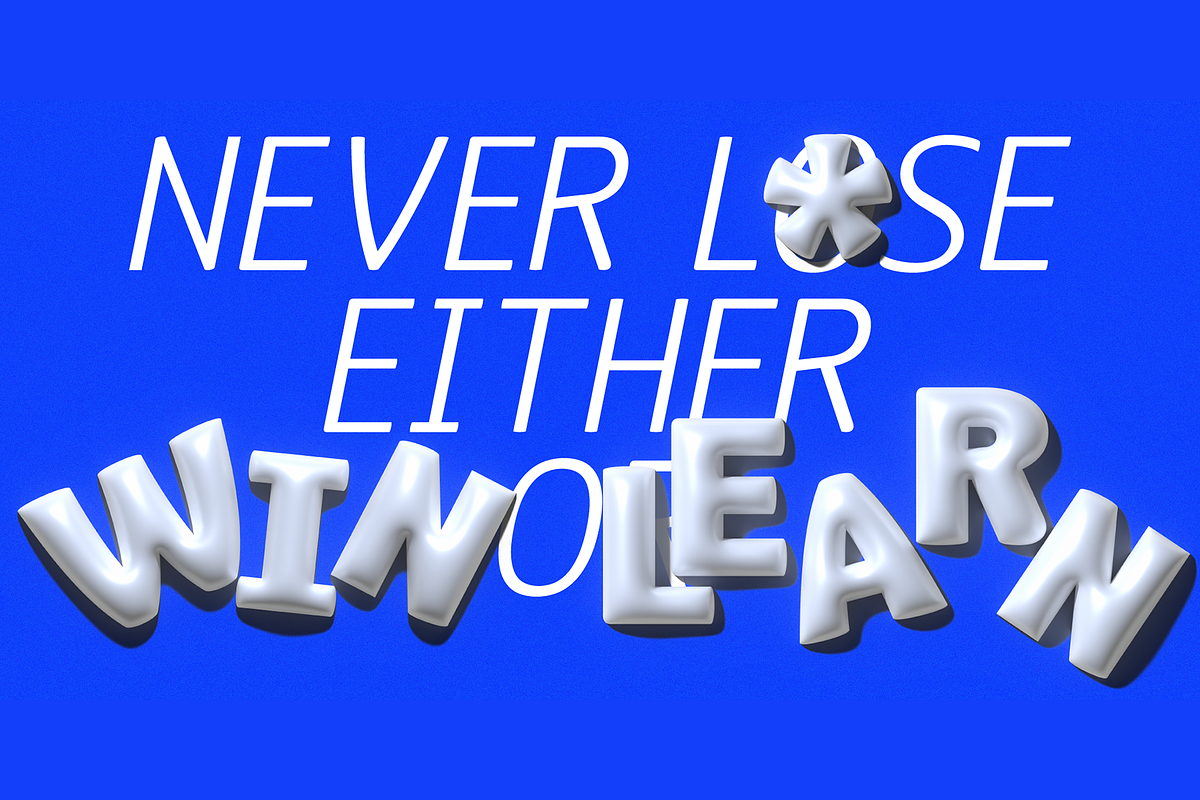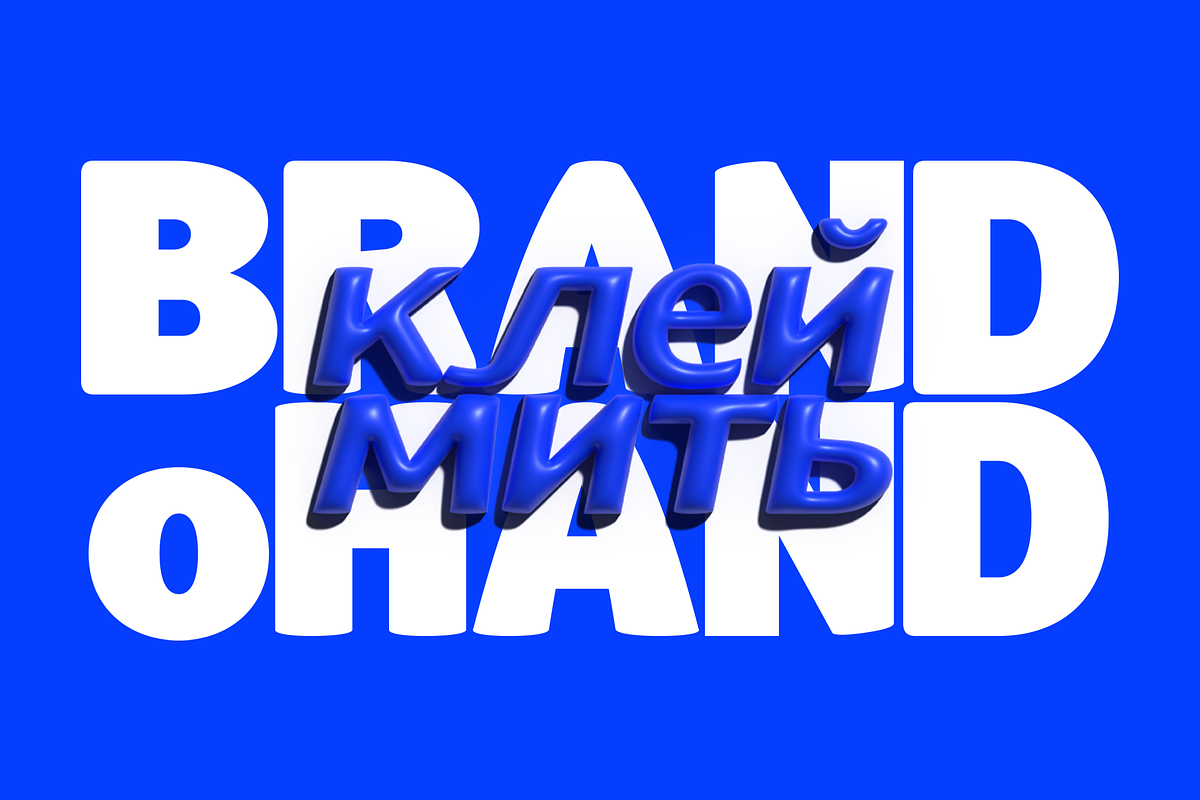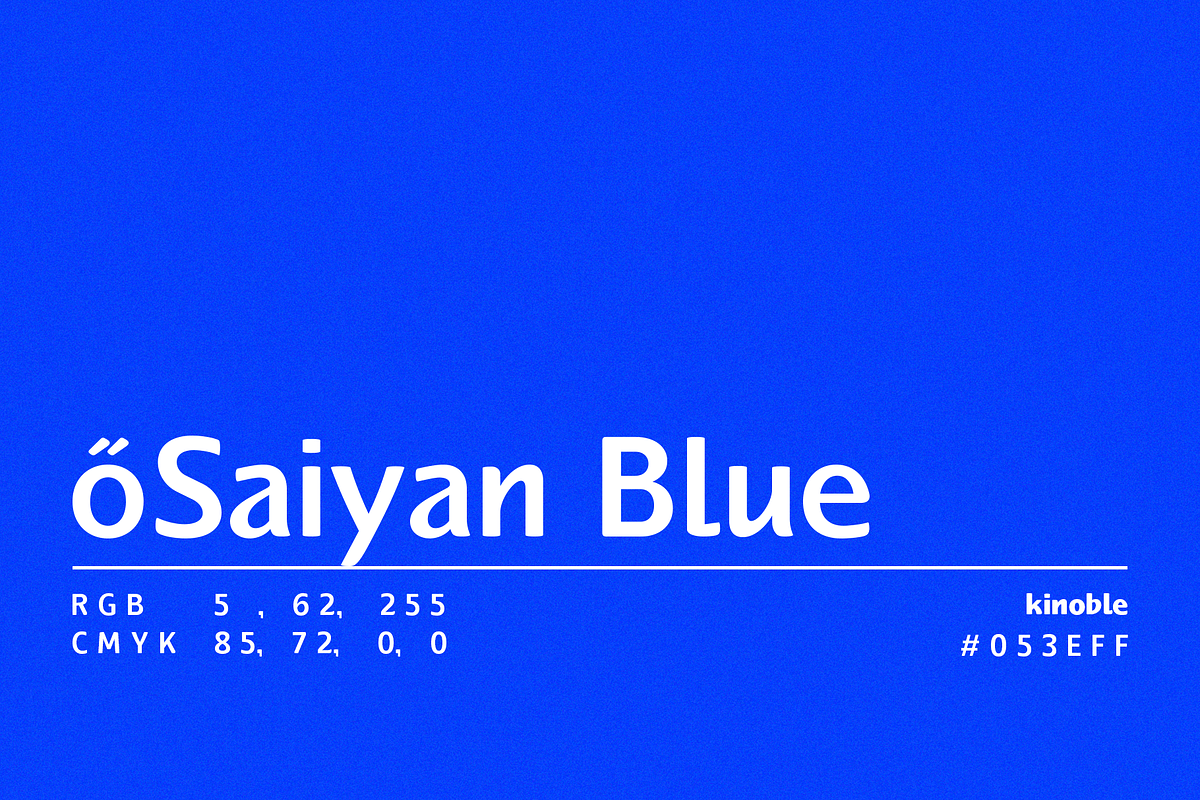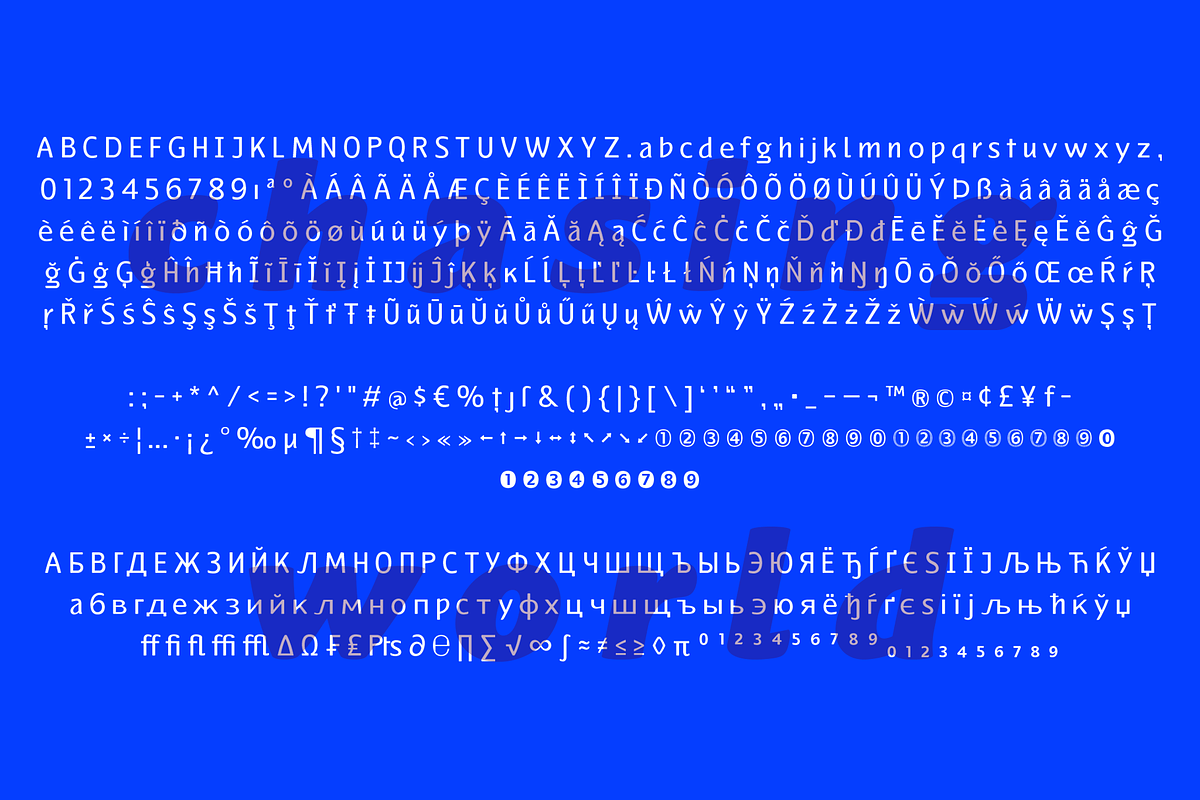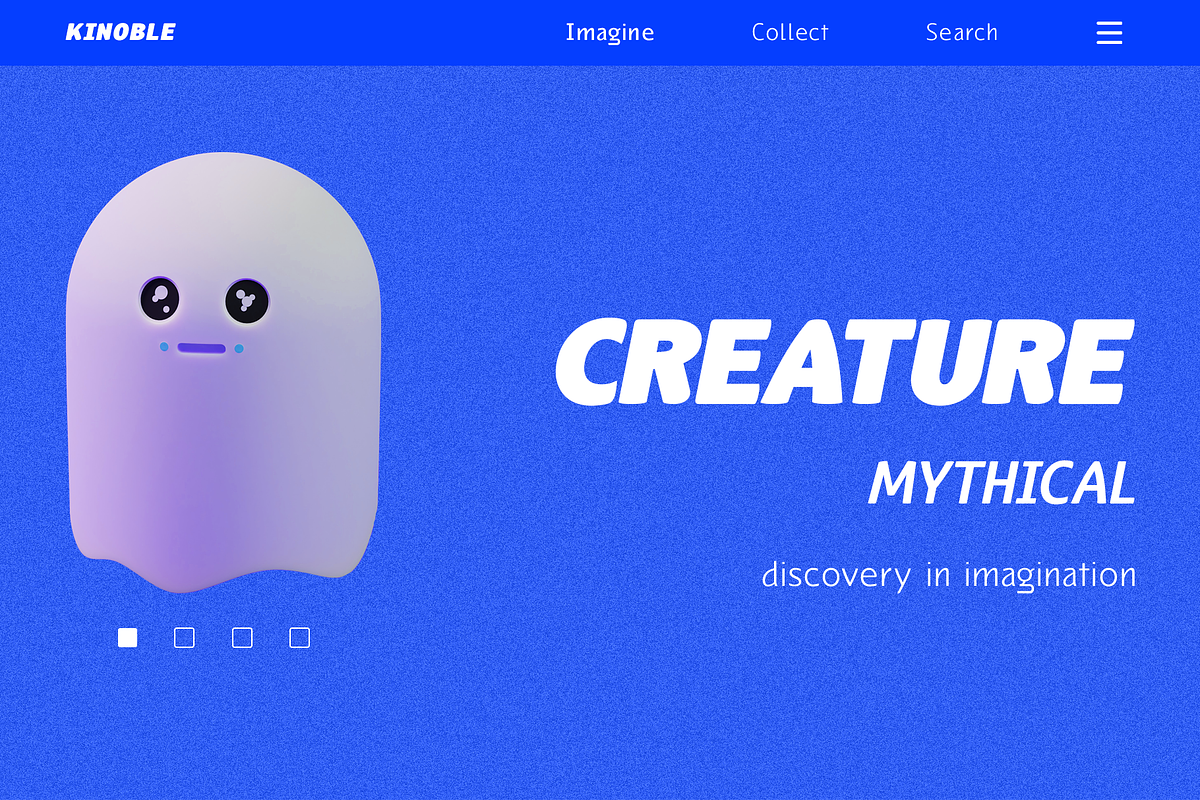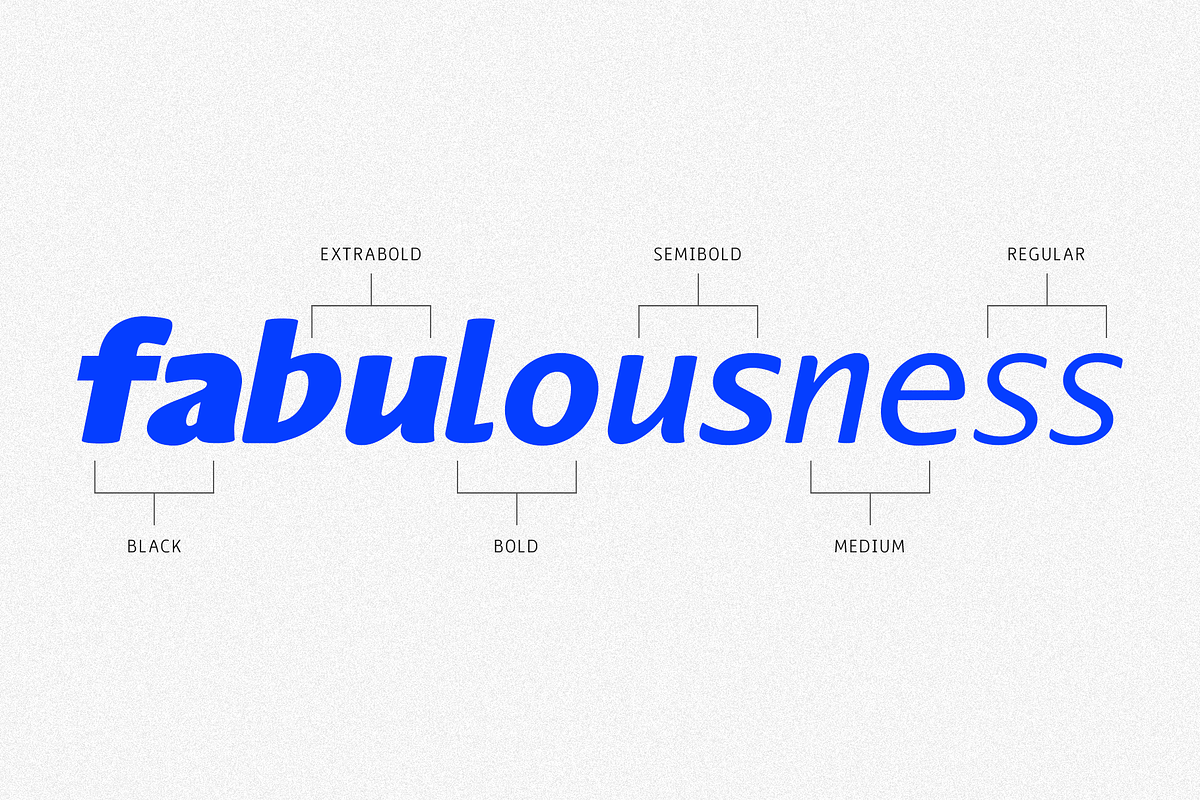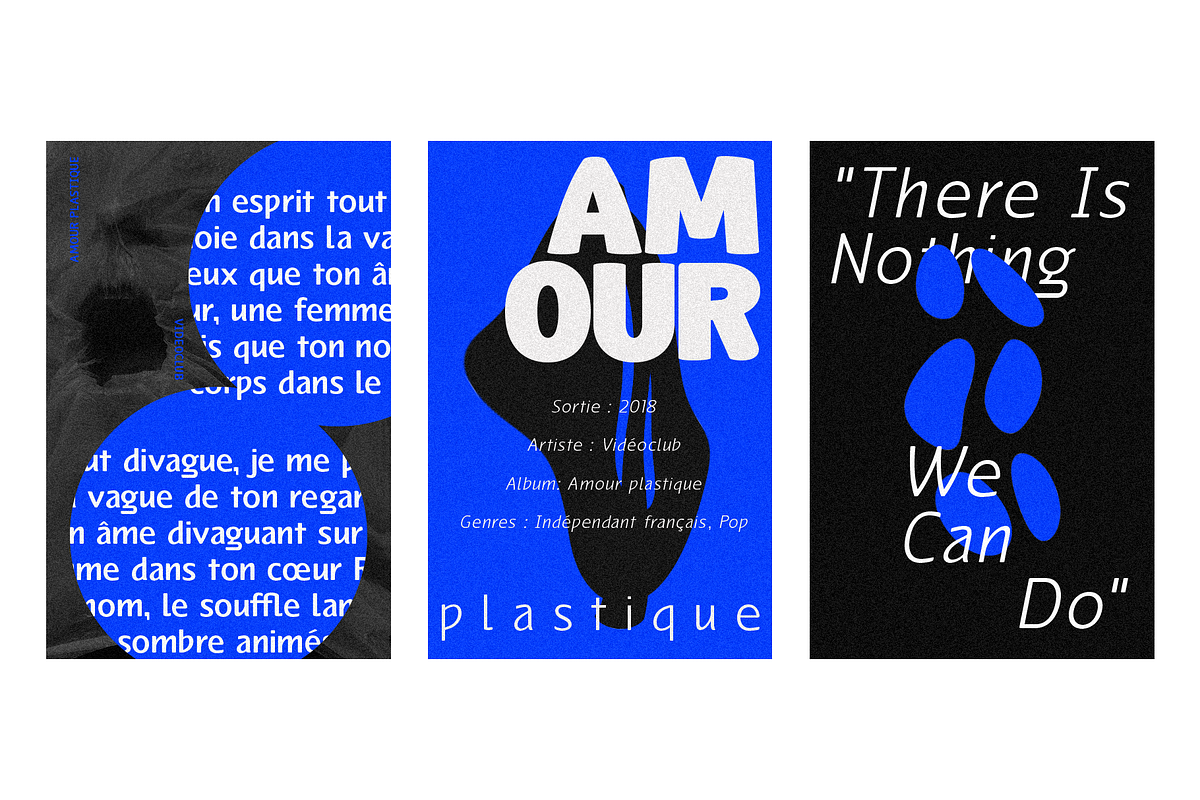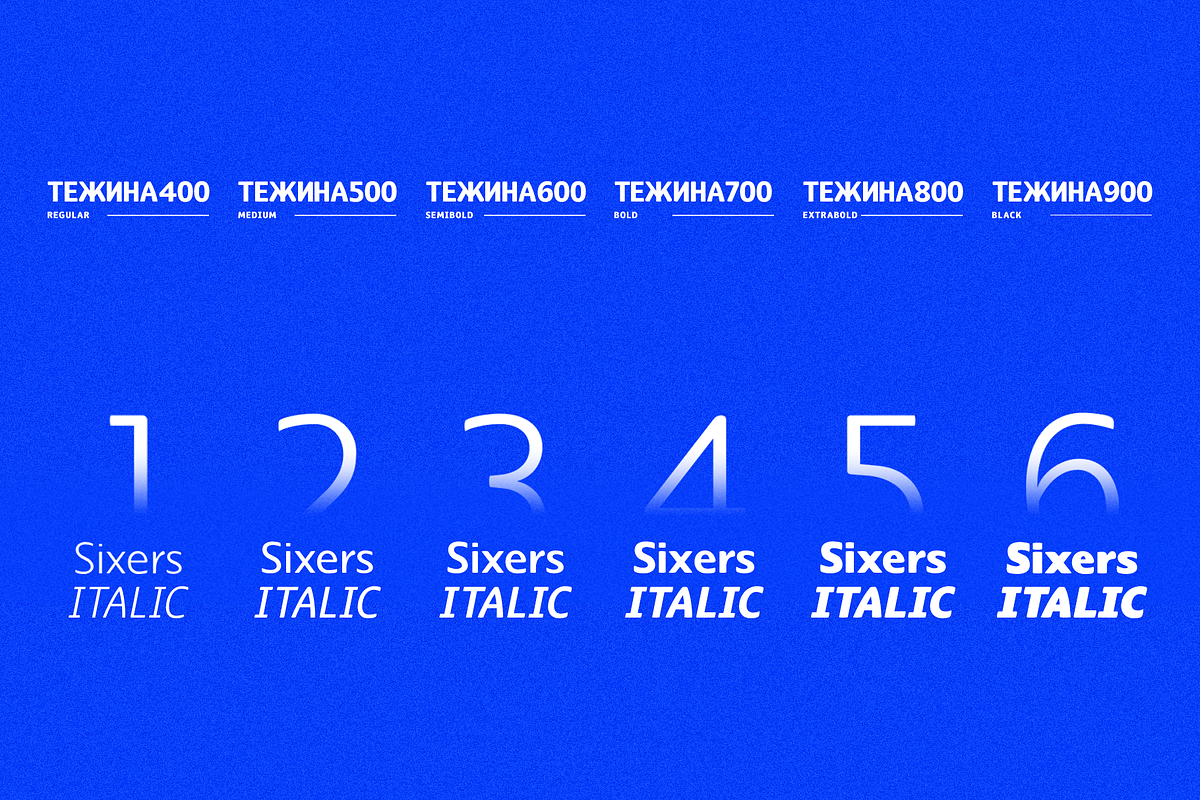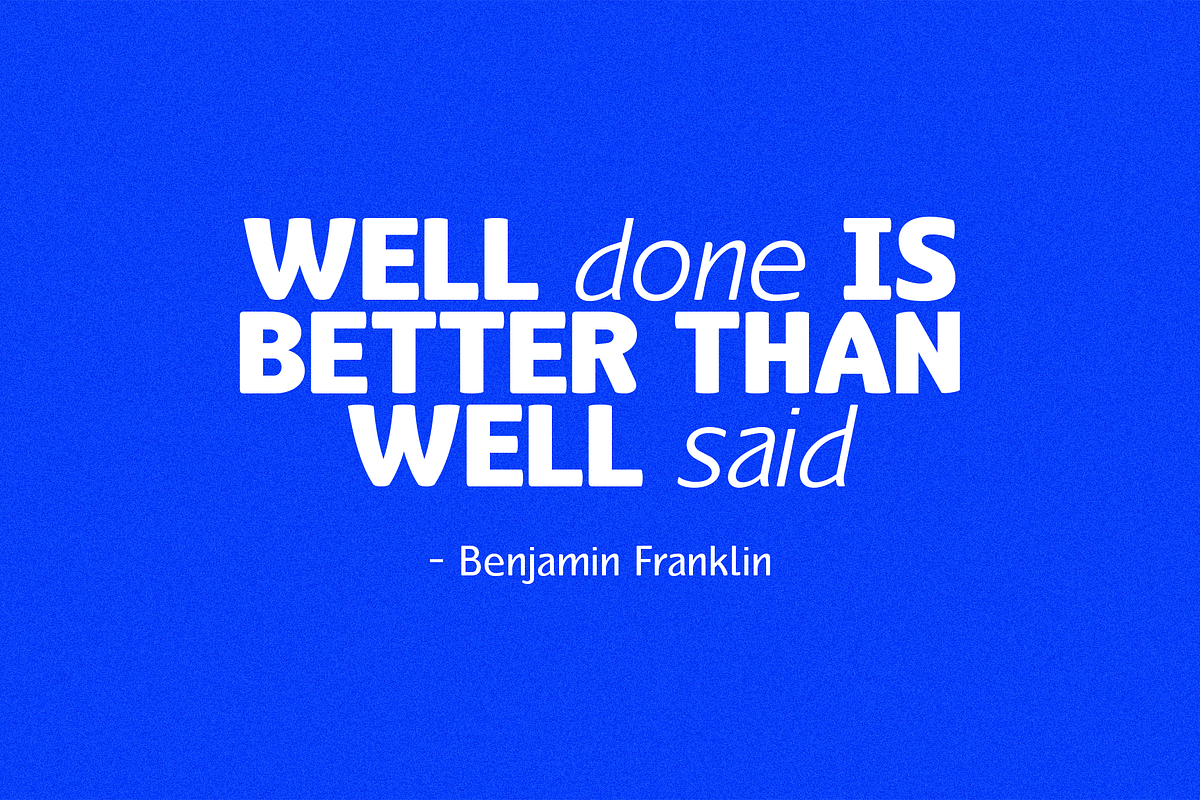
Kinoble - Friendly Display Font
Kinoble is a font that combines the clean look of sans-serif with a touch of handwriting for a natural feel. It comes in different weights, from regular to black, and has an italic style for added variety. This makes it suitable for various design purposes, from subtle to bold. Whether you need it for titles, logos, or any kind of display text, "Kinoble" adds a modern twist while staying easy to read. It's like a versatile tool in your design toolbox, offering a unique blend of style and clarity.